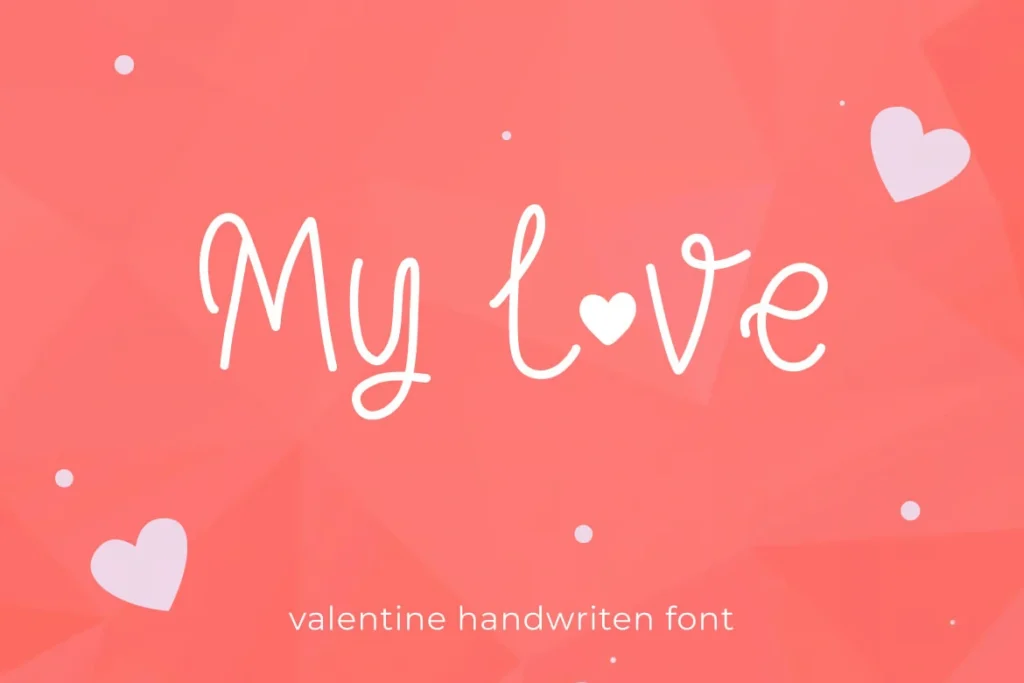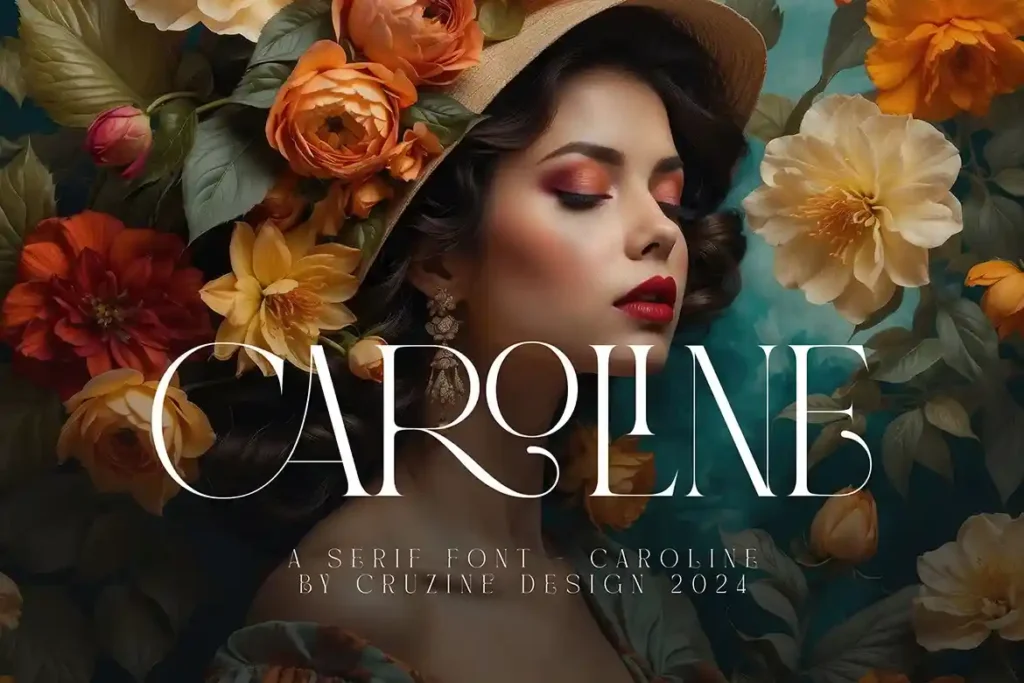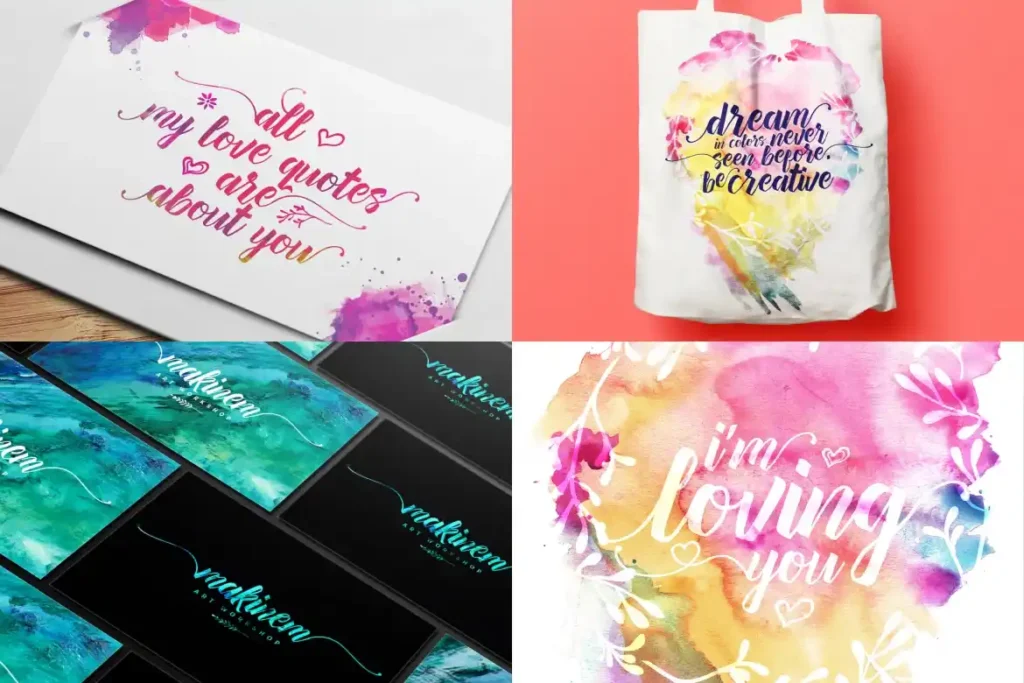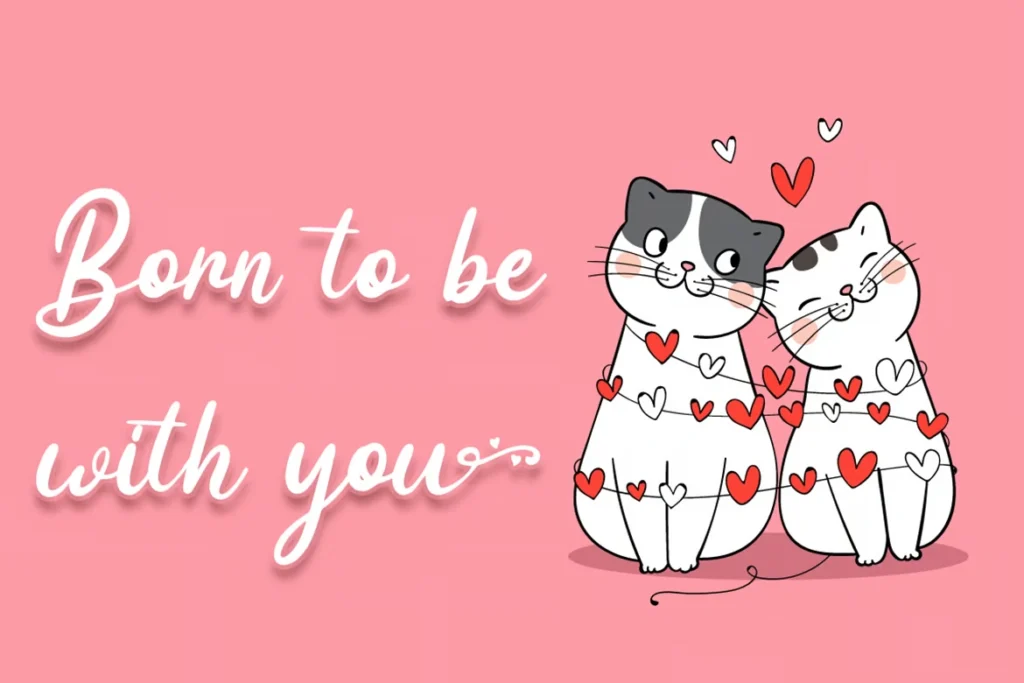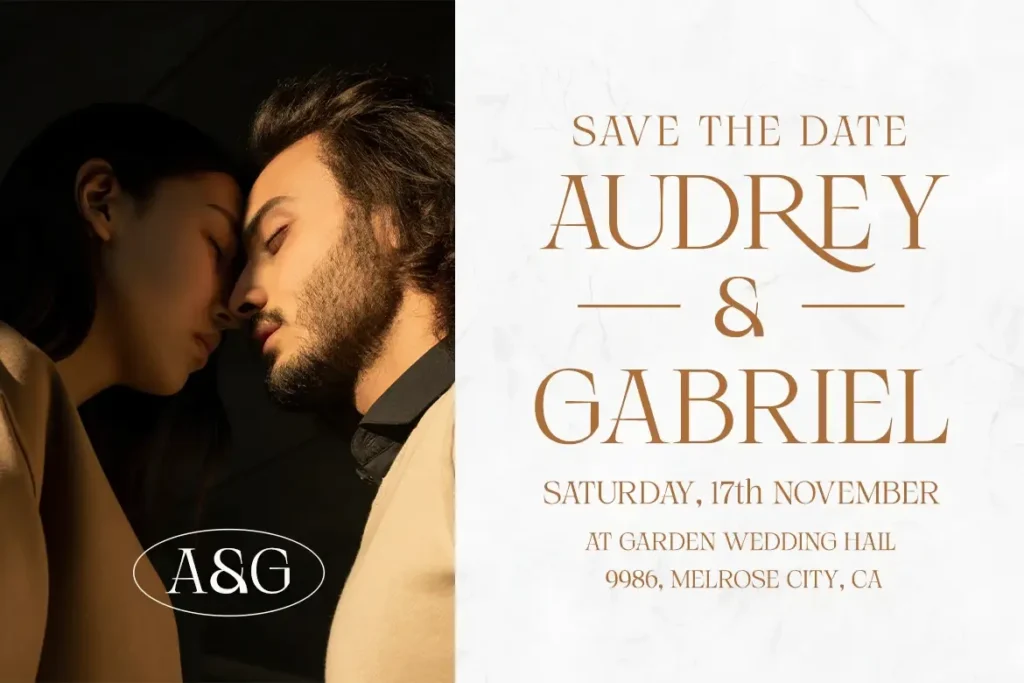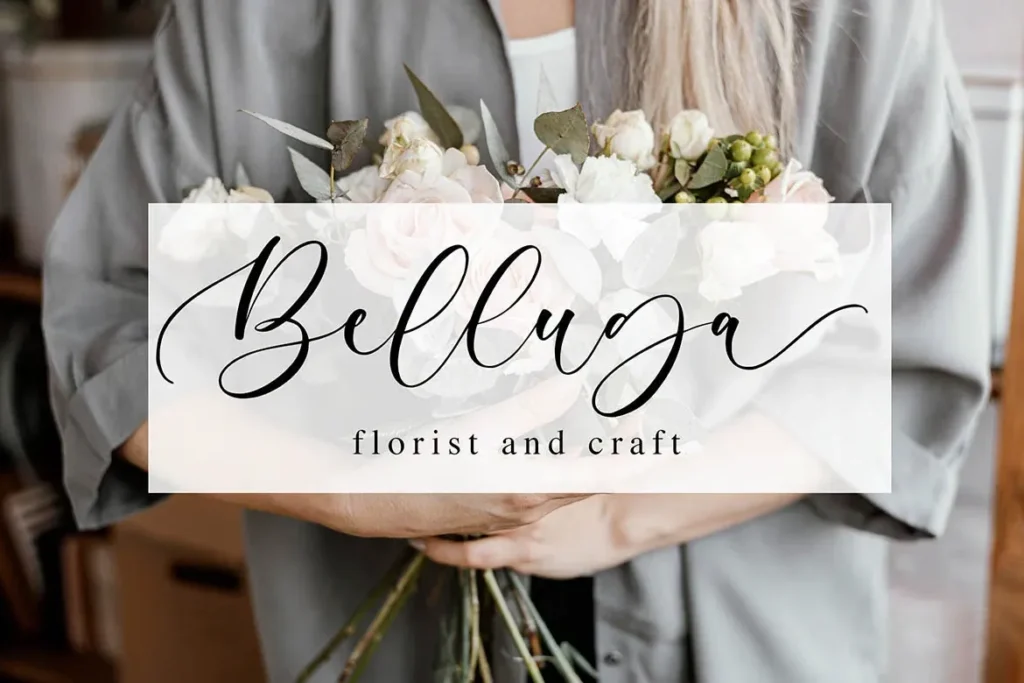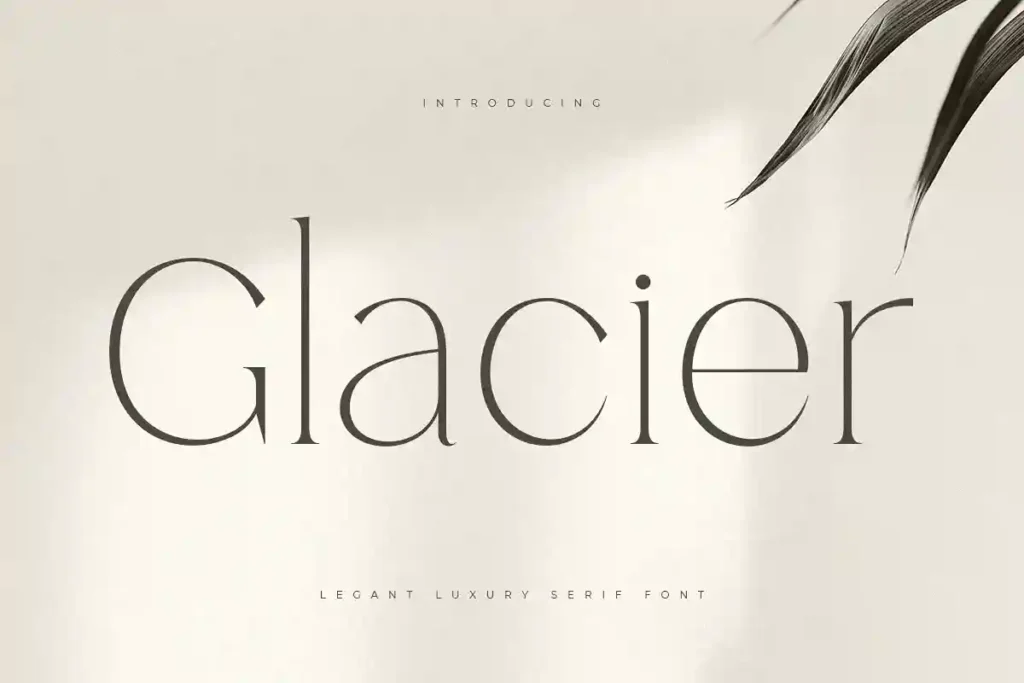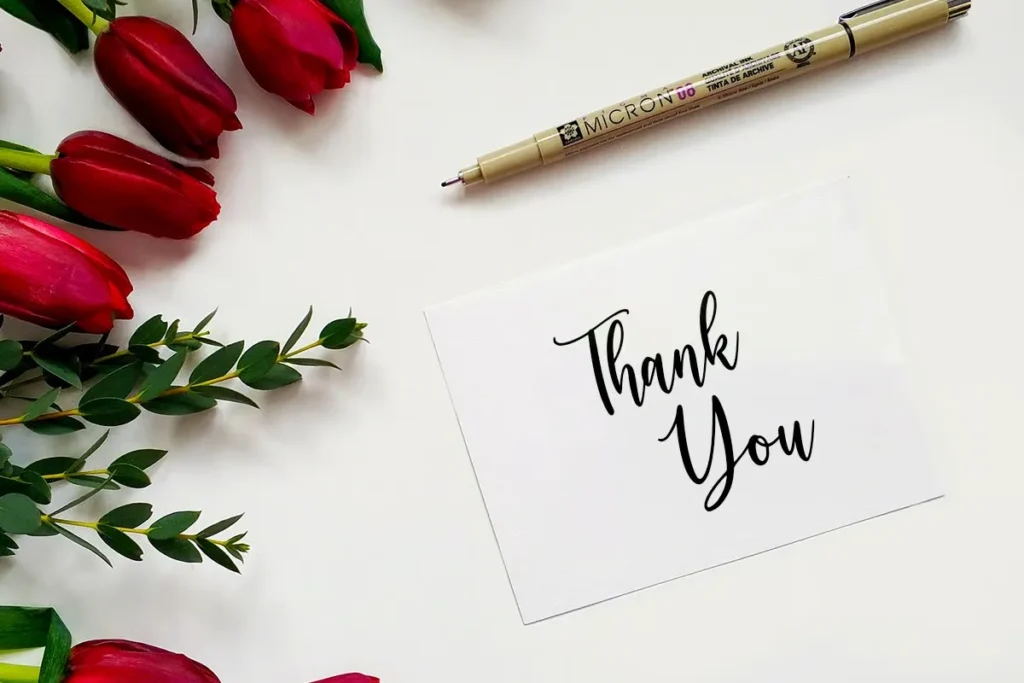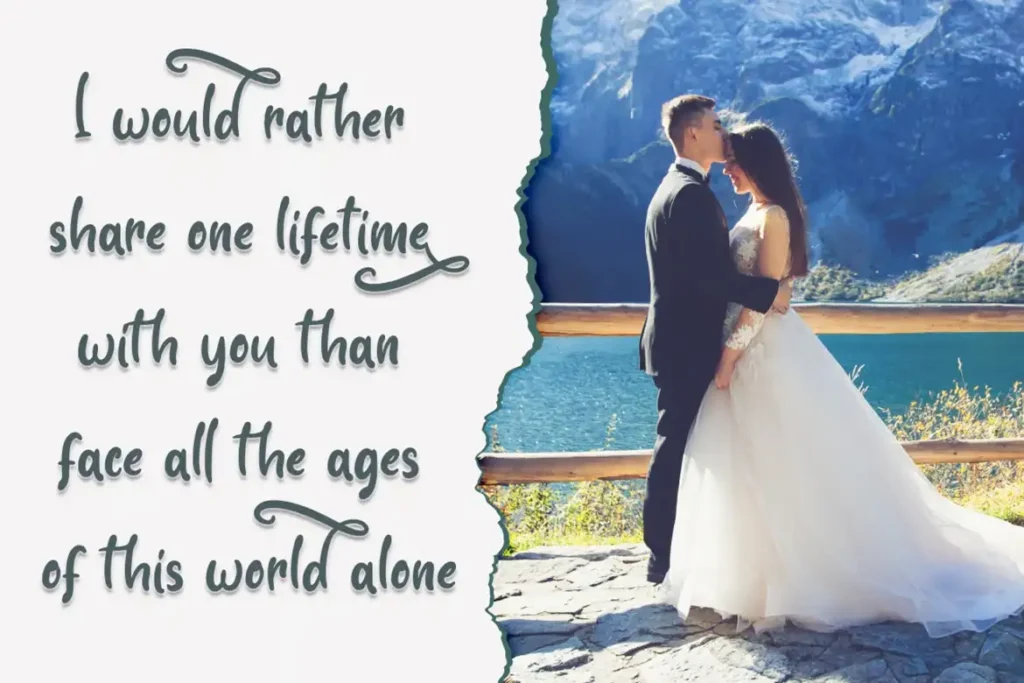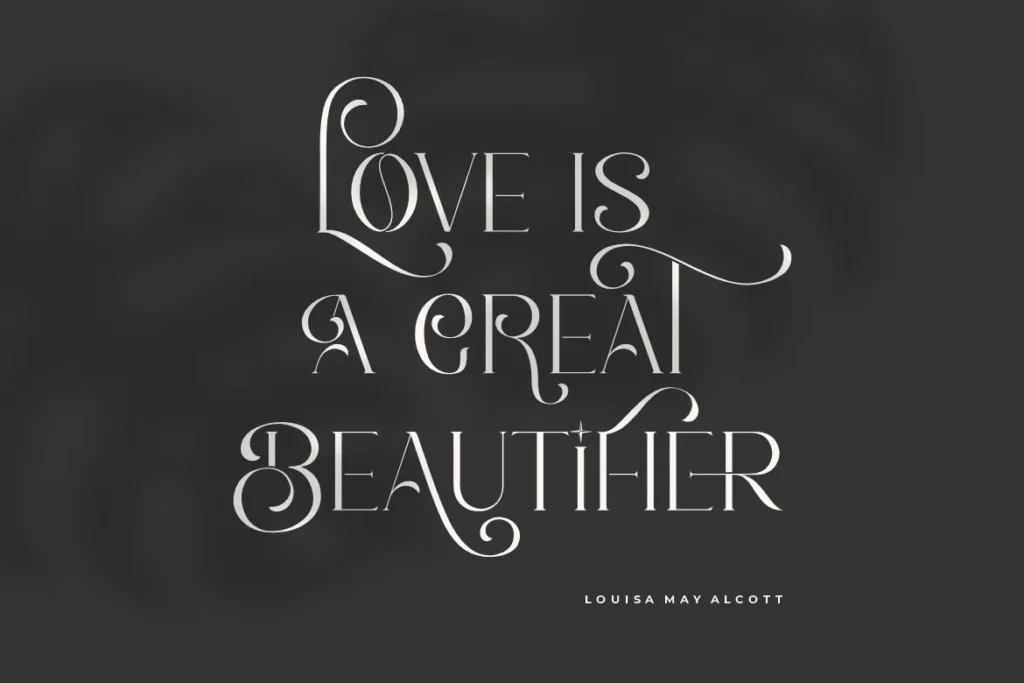
Top 24 Romantic Fonts for Celebrating Love Year-Round
24 Beautiful Romantic Fonts to Celebrate Love All Year Long
Typography is more than just letters—it’s an expression of emotion. The right font can transform an ordinary design into something deeply personal and meaningful. Whether you’re creating a wedding invitation, a love letter, or a Valentine’s Day campaign, the font you choose plays a crucial role in setting the mood.
But finding the perfect romantic font isn’t always easy. Many popular choices are overused, making it difficult to create something fresh and unique. That’s why we’ve curated a collection of 30 elegant and professional romantic fonts that bring charm, sophistication, and originality to your designs.
These fonts range from delicate calligraphy styles to refined serifs and stylish modern scripts, each designed to add warmth and elegance to your projects. Whether you’re working on branding, invitations, greeting cards, or social media posts, these fonts will help you create a timeless, love-inspired aesthetic.
Top 30 Romantic Fonts That Add Elegance and Emotion to Your Designs
Romance is all about emotions, and the right font can beautifully capture that feeling. Whether it’s a delicate script for wedding invitations, a sophisticated serif for elegant branding, or a stylish modern typeface for heartfelt messages, choosing the perfect font makes all the difference.
Below, you’ll find 30 carefully selected romantic fonts that bring charm, elegance, and originality to any love-themed design. These fonts are unique, professional, and perfect for everything from personal projects to high-end branding.
1. Glacier
Glacier- romantic font
A Timeless Serif for Luxury and Romance
Glacier is an elegant luxury serif with refined details that exude sophistication. Its delicate curves and sharp edges create a perfect balance of grace and strength, making it an ideal choice for upscale designs.
Best for: Wedding invitations, high-end branding, magazine covers, and premium product packaging.
2. Lavish
Lavish Romantic font
Modern Elegance with a Romantic Touch
Lavish is a sleek modern serif that blends sophistication with subtle romance. Its graceful strokes and well-balanced letterforms give it a high-fashion feel, making it perfect for chic and stylish designs.
Best for: Luxury branding, wedding stationery, fashion logos, and lifestyle designs.
3. Aurora
Lavish Romantic font
A Sleek Serif with a Contemporary Romantic Twist
Aurora is a modern and elegant serif designed for contemporary creatives. With its sleek curves and subtle romantic touch, it adds a sense of sophistication to any design, whether in print or digital form. Its versatility makes it an excellent choice for web-based projects.
Best for: Digital campaigns, minimalist wedding stationery, and elegant web typography.
4. Carla Sans
Carla sans - romantic font
A Versatile Typeface with Romantic Elegance
Carla Sans is a sophisticated sans-serif that blends clarity with charm. Featuring beautiful ligatures, special alternative glyphs, and ornamental details, this typeface enhances any romantic design while maintaining readability and style.
Best for: Modern love-themed projects, colorful designs, body text, and stylish headlines.
5. Caroline Luxury Serif
Caroline Luxury Serif
A Sophisticated Serif with Timeless Romance
Caroline Luxury Serif brings together elegance, retro charm, and contemporary refinement. Its soft curves and luxurious style make it an excellent choice for high-end romantic designs. Whether you need a classic or modern touch, this font delivers.
Best for: Luxury branding, wedding invitations, editorial spreads, and upscale product packaging.
6. Glamore
Glamore- romantic font
Glamore
A Striking Display Font with a Refined Romantic Flair
Glamore is a high-fashion display serif with stunning curves that add a luxurious and graceful look. Inspired by traditional influences but designed for modern aesthetics, it creates an exquisite yet subtle impact.
Best for: Fashion branding, high-end logos, beauty products, and editorial design.
7. Aloevera Display
Aloevera Display font
An Artistic Serif with a Romantic Aesthetic
Aloevera Display blends artistic brush strokes with a sophisticated serif structure, creating a balance between expressive creativity and elegant charm. This font enhances any love-themed design with its soft, stylish curves.
Best for: Wedding invitations, personalized stationery, greeting cards, and romantic branding.
8. Lost Love
Lost Love font
A Serif Font with Elegance and Romance
Lost Love is a refined serif designed to bring a touch of sophistication and warmth to your designs. With its beautiful ligatures and professional appeal, this font is perfect for capturing romantic sentiments in a stylish way. Whether you’re working on a wedding invite or a Valentine’s Day graphic, Lost Love adds a timeless charm.